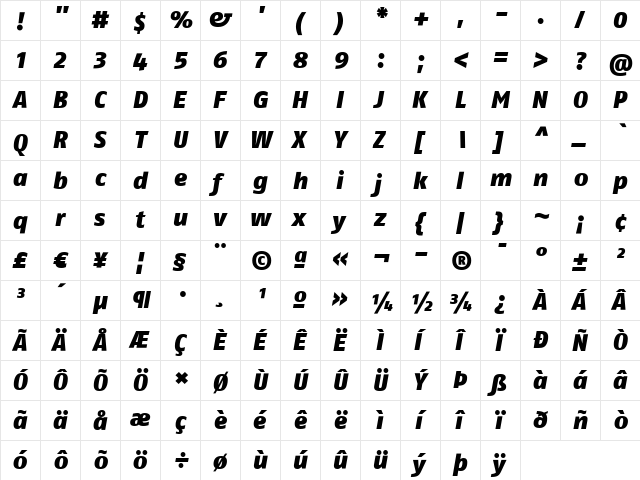
FagoNoLf ItalicHeavy
Design Context for FagoNoLf Typeface
FagoNoLf offers clean, dependable letterforms without strong stylistic allegiance, making it a practical choice for designers who need flexibility. The dynamic lean of this cut emphasises speed and emphasis in any layout.
Pro Tip: Use FagoNoLf for emphasis, pull quotes, and subheadings where its slanted energy can add rhythm to the layout.